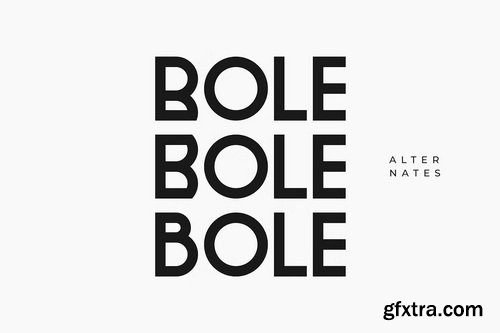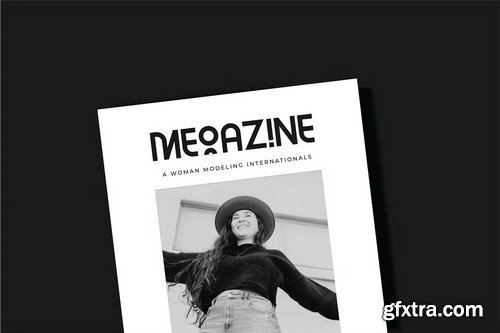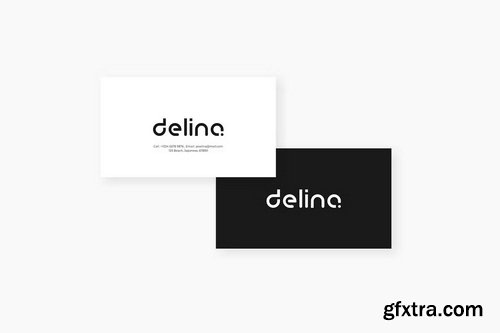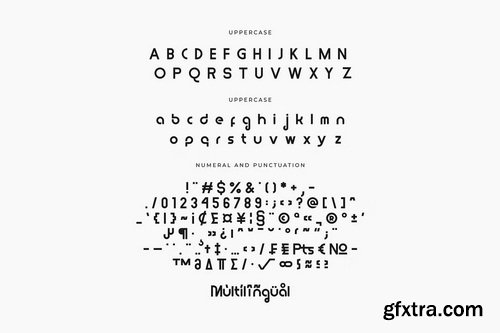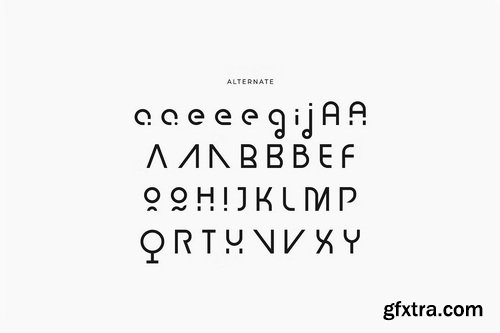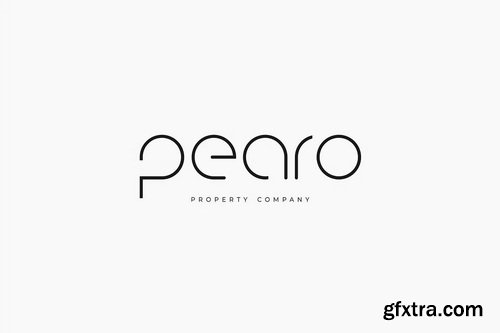
CreativeMarket - Polea Modern Logo Font
- Hello, ladies and gentlemen! In response to market demand, I created a minimalist sans serif font that is modern, elegant, and cool. Therefore, I decided to create this sans serif font. Polea is a minimalist sans serif font presented in a modern style, making it a market favorite. We keep this font elegant, classy, modern, stylish, up-to-date, and easy to use. Polea is a great choice for logos, labels, fashion, posters, banners, bags, brands, fashion, brand names, branding, quotes, and other projects. Polea is here to take your designs to the next level.